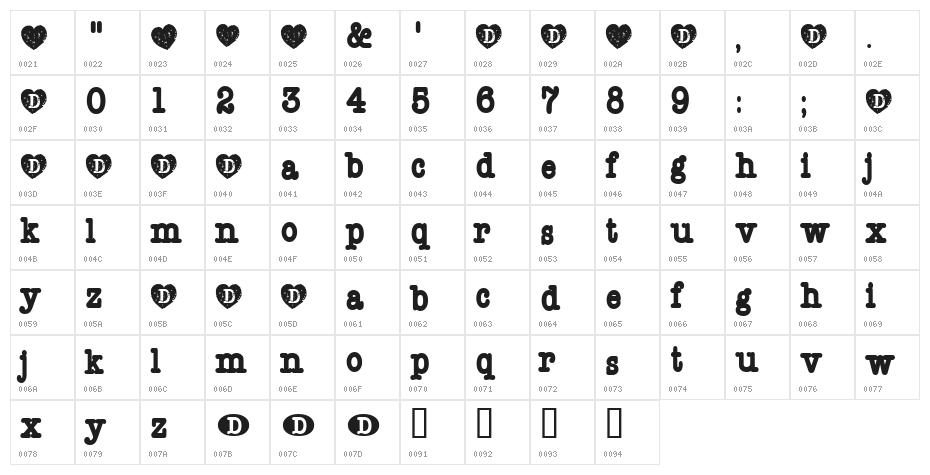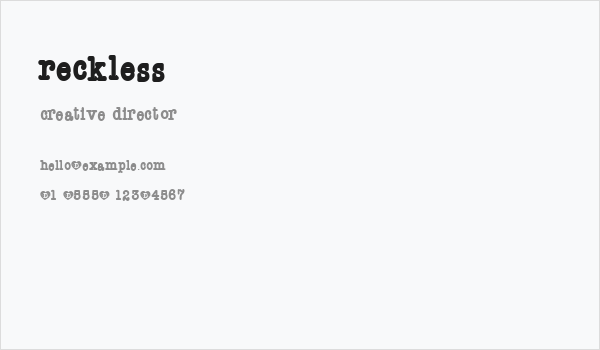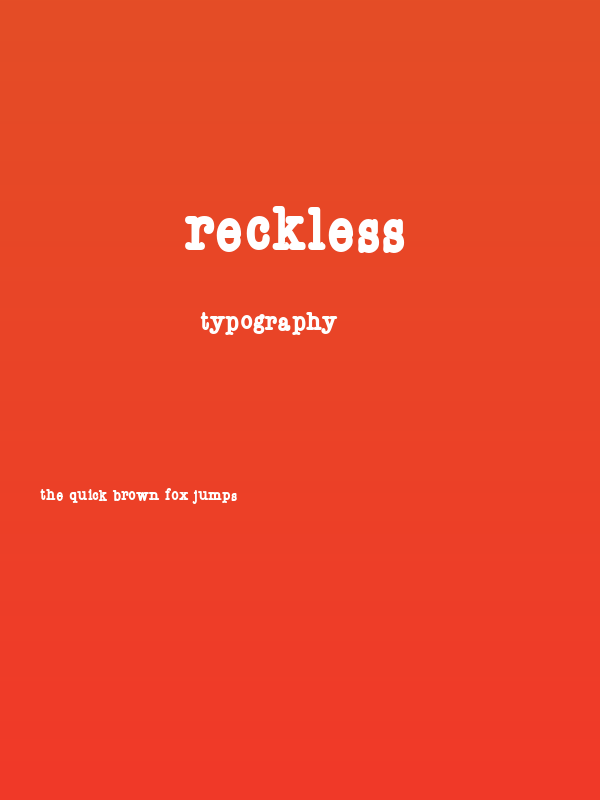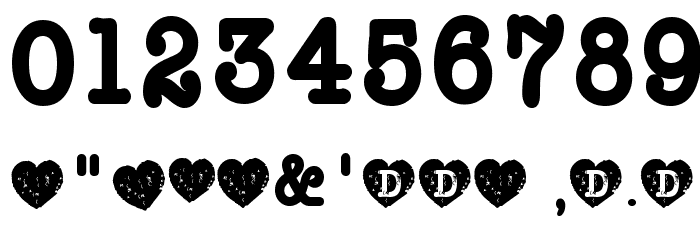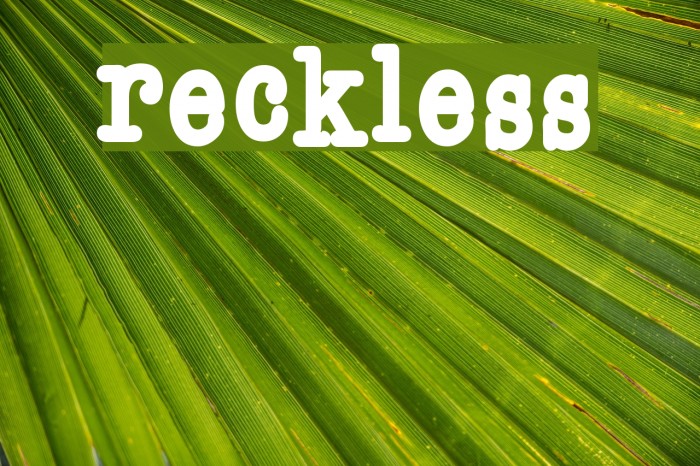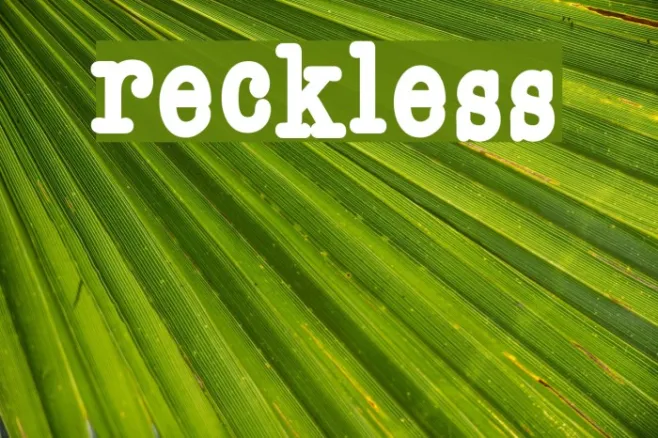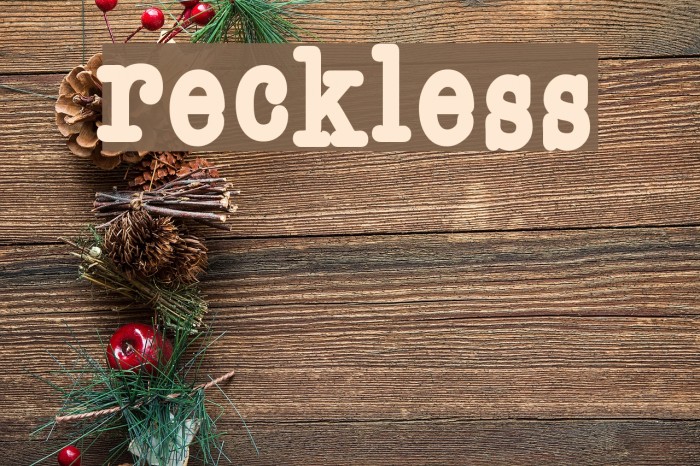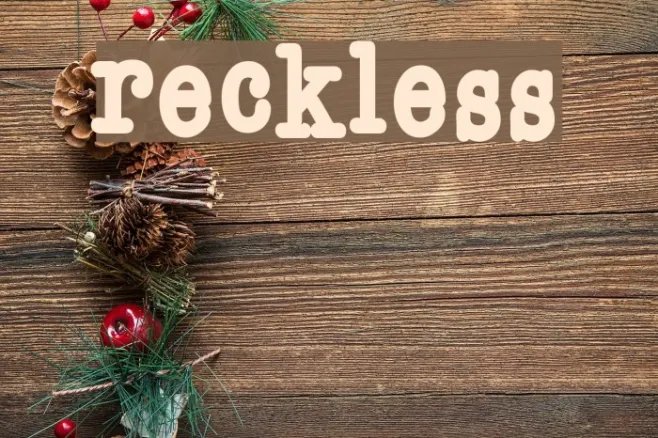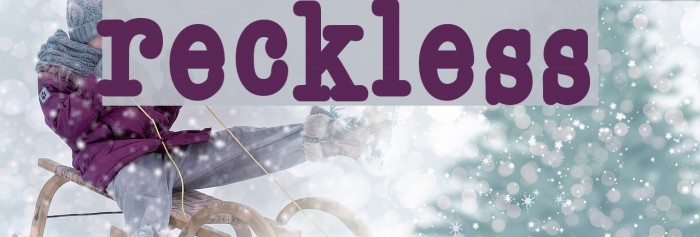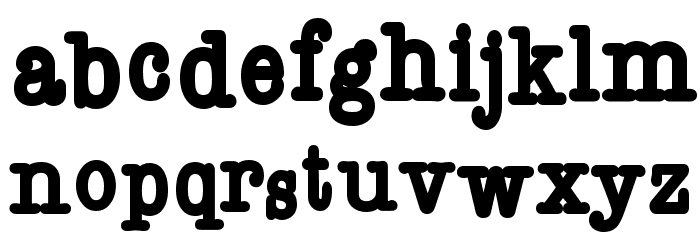
Reckless Font
Reckless Description
This font features a bold, slab serif style with thick, rounded serifs that give it a strong and impactful appearance. The characters are uniformly bold, with a consistent stroke width that adds to its robust look. The letters are well-spaced, providing a balanced and readable text. The numbers and special characters maintain the same boldness and style, ensuring consistency across all elements. The font's decorative nature is enhanced by the inclusion of heart-shaped symbols, adding a playful and unique touch. Overall, this font exudes a vintage charm while maintaining a modern edge, making it versatile for various design needs.
| Proposed Projects | Ideal for posters, branding, headlines, and any design requiring a strong, decorative typeface. |